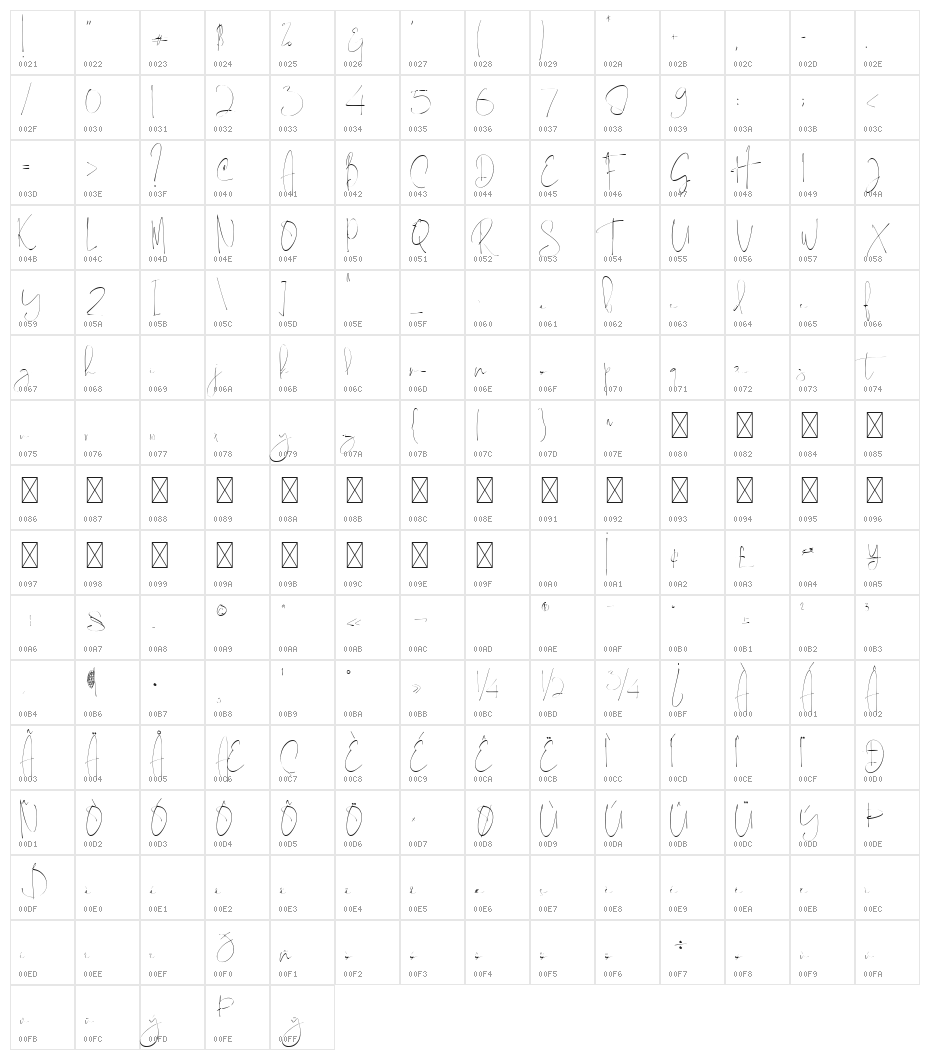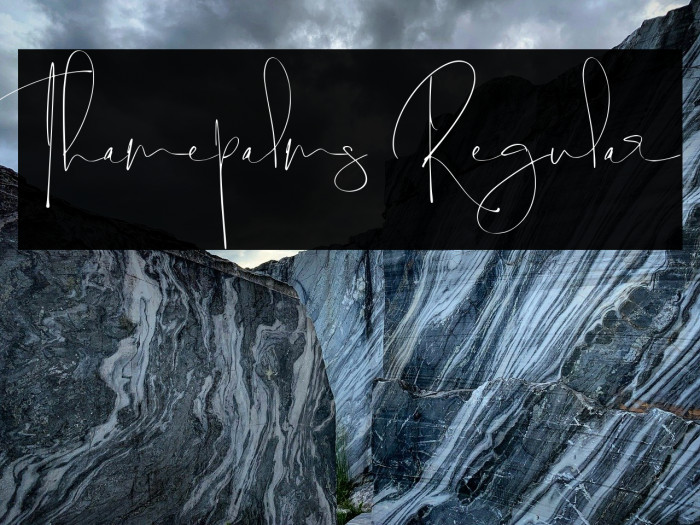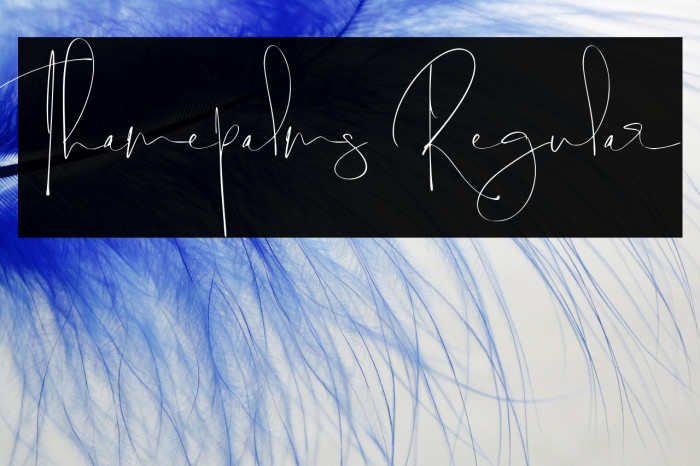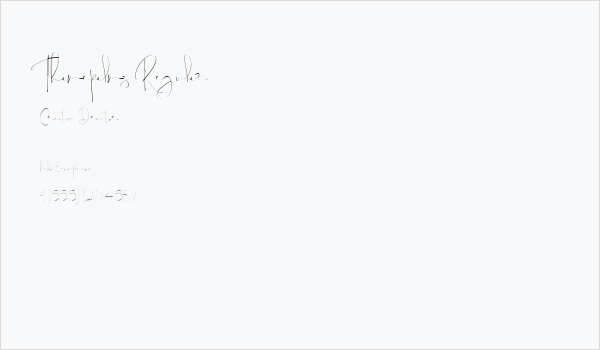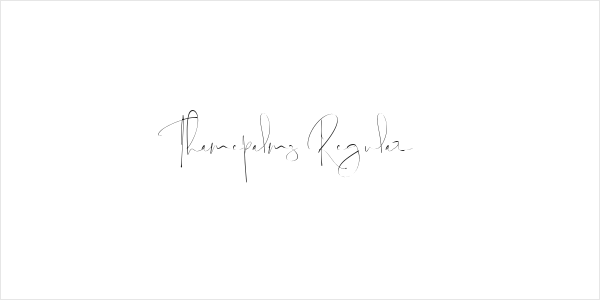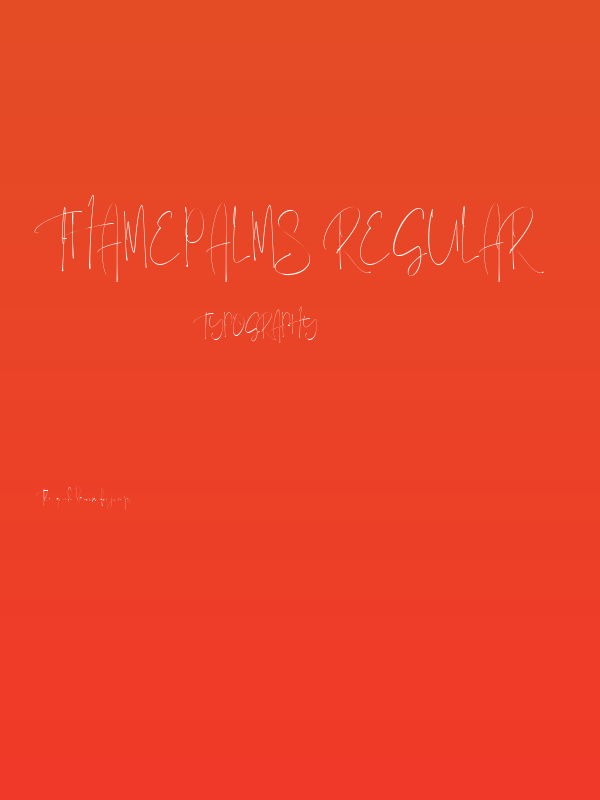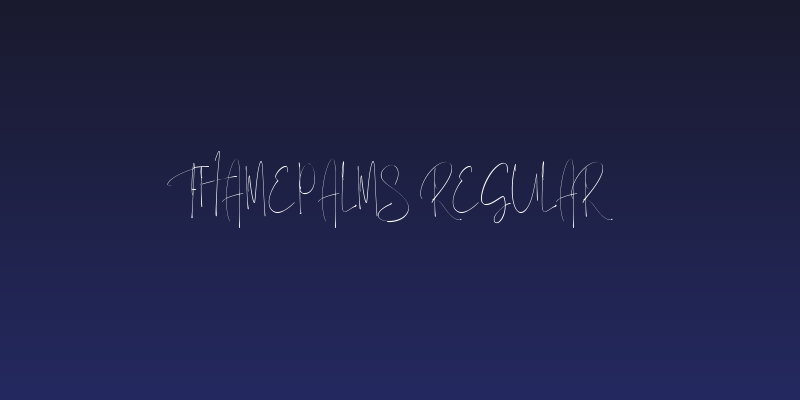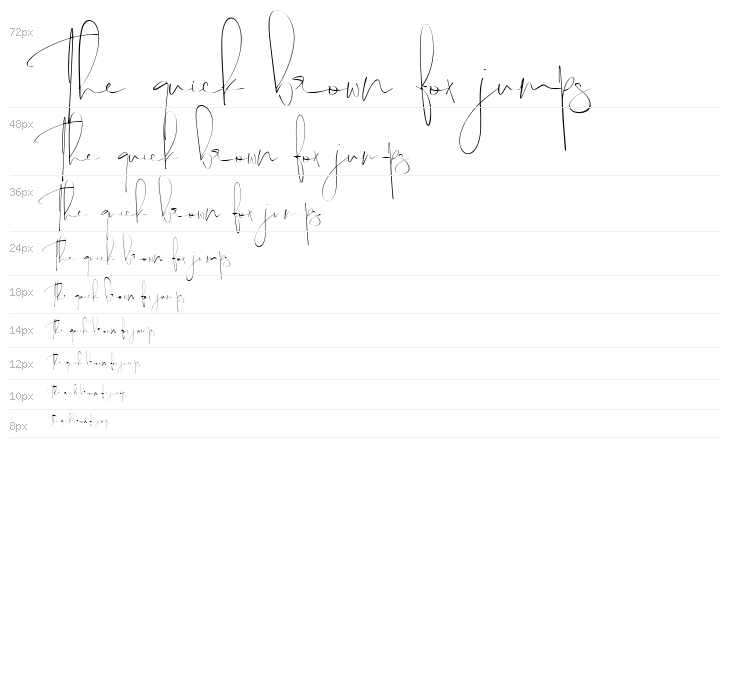
Thamepalms Regular Font
Thamepalms Regular Description
This font exhibits a lively and dynamic handwritten style, characterized by its fluid and organic strokes. The letters are tall and slender, with a playful yet elegant appearance. The uppercase letters are particularly elongated, giving a sense of height and grace. The lowercase letters maintain a consistent flow, with some characters featuring unique loops and curves that add to the font's charm. The numerals are similarly styled, with a whimsical touch that complements the overall aesthetic. Special characters are integrated seamlessly, maintaining the font's cohesive look.
| Proposed Projects | Ideal for creative projects such as invitations, greeting cards, personal branding, and artistic posters. |